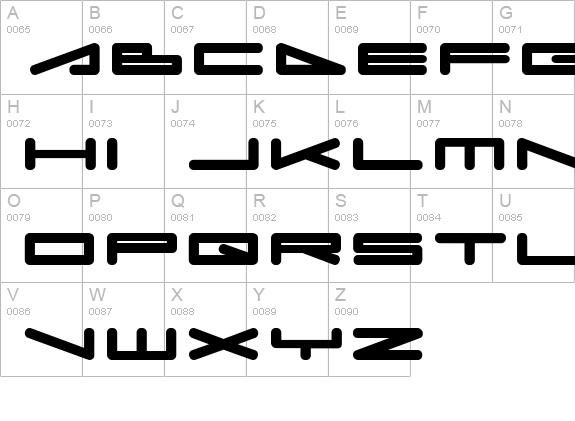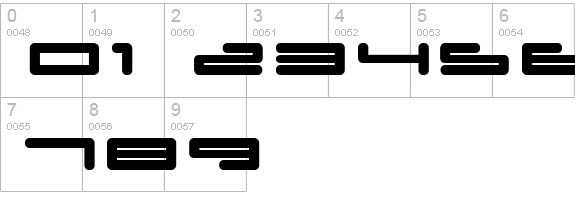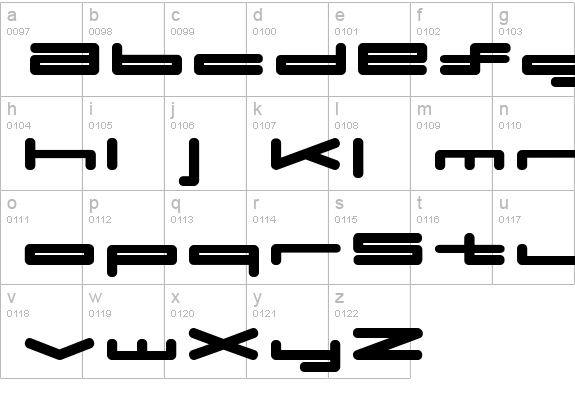
umop Font Details
Introducing the remarkable and captivating umop font, a true gem in the world of typography. This font is a perfect blend of elegance, uniqueness, and versatility, making it a must-have for any design enthusiast. With its mesmerizing curves and stylish strokes, umop font adds a touch of sophistication and charm to any project it graces. What sets umop font apart is not only its stunning aesthetic appeal, but also its incredible accessibility. This font is freely available to download at FontsMarket.com, allowing designers, artists, and creatives of all kinds to unleash their creativity without any limitations. Whether you're working on a personal project or a commercial venture, umop font is at your disposal, ready to elevate your designs to new heights. With a wide range of weights and styles, umop font offers endless possibilities for experimentation and customization. Whether you prefer a bold and impactful look or a subtle and refined touch, umop font has got you covered. Its versatility makes it the perfect choice for various design purposes, including logo design, branding, packaging, editorial design, and much more. Not only does umop font excel in terms of aesthetics and versatility, but it also ensures seamless legibility. Its carefully crafted letterforms and well-defined proportions guarantee that your message will be conveyed effortlessly, regardless of the size or medium. Whether it's on a printed piece or a digital platform, umop font ensures that your words are clear and visually appealing. Furthermore, umop font is designed with utmost attention to detail, resulting in a smooth and consistent experience across different devices and platforms. It is optimized for both print and digital media, ensuring that your designs look stunning in any context. Its high-quality outlines and meticulous spacing make it a joy to work with, providing a hassle-free experience for designers and users alike. In conclusion, umop font is a true masterpiece in the world of typography, offering a perfect balance between aesthetics, versatility, and accessibility. Its captivating design, coupled with its seamless legibility, makes it a go-to choice for designers seeking to make a lasting impression. And the best part? It is freely available to download at FontsMarket.com, allowing you to unlock its full potential and bring your creative visions to life. Embrace the elegance of umop font and watch your designs soar to new heights.